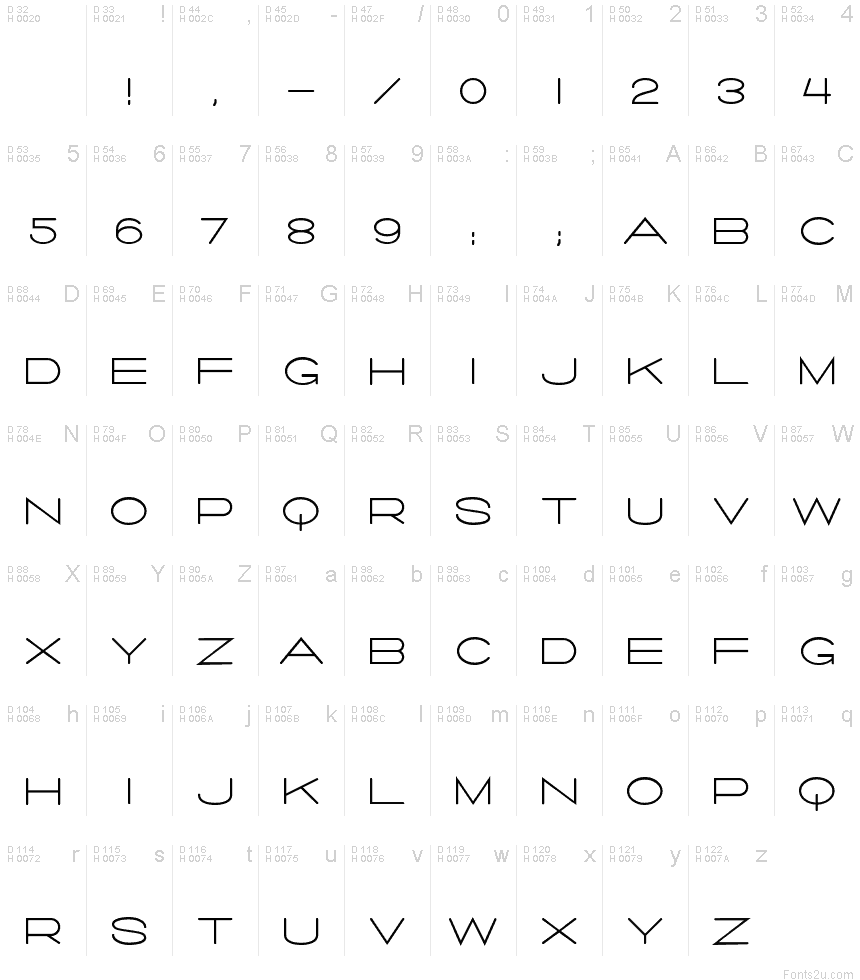
Salaryman by Patrick Broderick is a free geometric sans serif with a sleek, early-digital feel. The caps are built from thin monoline strokes, broad curves, and pointed A forms, giving the letters a calm, engineered rhythm that feels both minimal and a little futuristic.
It works well for branding, poster titles, music packaging, title cards, and magazine cover lines where a spare, high-tech mood helps carry the message. As a free font, Salaryman also suits short logos and monograms, since its clean open shapes and distinctive angular peaks give even a few letters a clear visual identity.